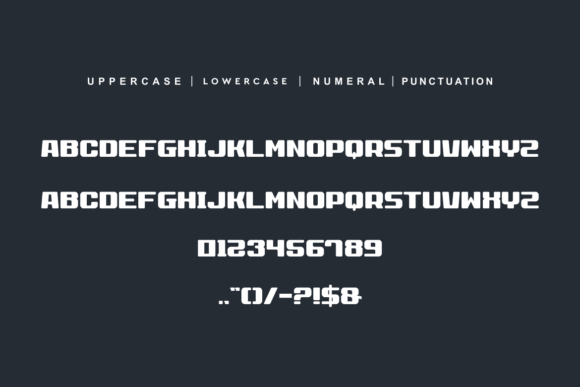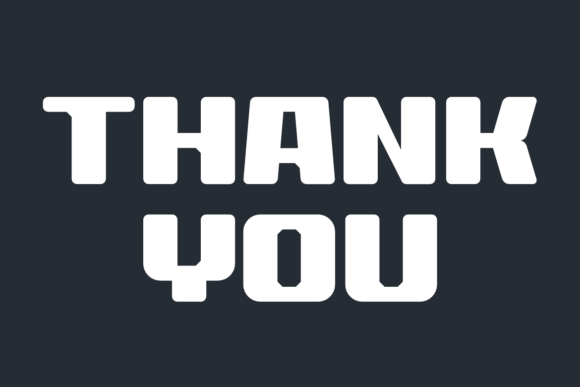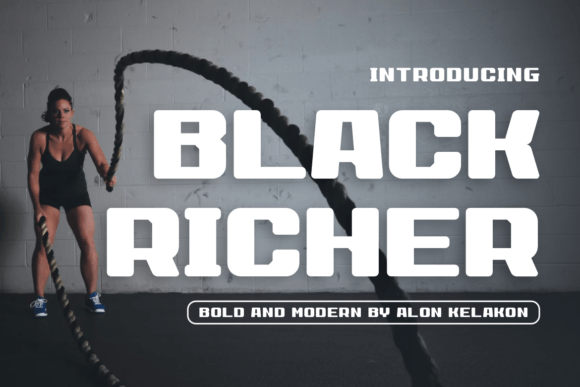
The Designer’s Delight: Uncovering the Power of Black Richer Font
I’ll never forget the time I was working on a project for a client who needed a bold, eye-catching font to make their brand stand out. I spent hours scouring the internet for the perfect one, but nothing seemed quite right. That was until I stumbled upon Black Richer Font. It was like a breath of fresh air – unique, stylish, and versatile. In this article, I’ll share my experience with Black Richer Font, its features, and how to make the most of it in your designs.
- ✨ Unique and distinctive design that adds a touch of sophistication to any project
- ✅ Highly versatile and can be used for a wide range of applications, from labeling and clothing to movie titles and album covers
- ⚡️ Excellent for creating bold, eye-catching designs that demand attention
While Black Richer Font is an excellent choice for many projects, there are a few things to keep in mind:
- 🤔 May not be the best choice for body text or long-form content, as it’s quite bold and attention-grabbing
- ⚠️ Some users may find the font a bit too ornate or over-the-top for certain applications
The Designer Inspiration Behind Black Richer Font
While the true story behind Black Richer Font may be unknown, it’s easy to imagine a designer sitting in a coffee shop, scribbling notes and ideas in a notebook. Perhaps they were inspired by the urban landscape, the world of fashion, or the glamour of Hollywood. Whatever the inspiration, Black Richer Font is a true design gem that’s sure to delight.
| Font Name | Black Richer Font |
| Author | alonkelakon |
| What is Black Richer Font best used for? | Black Richer Font is highly versatile and can be used for a wide range of applications, from labeling and clothing to movie titles and album covers. |
| Is Black Richer Font suitable for body text? | While Black Richer Font is an excellent choice for headlines and titles, it may not be the best choice for body text or long-form content. |